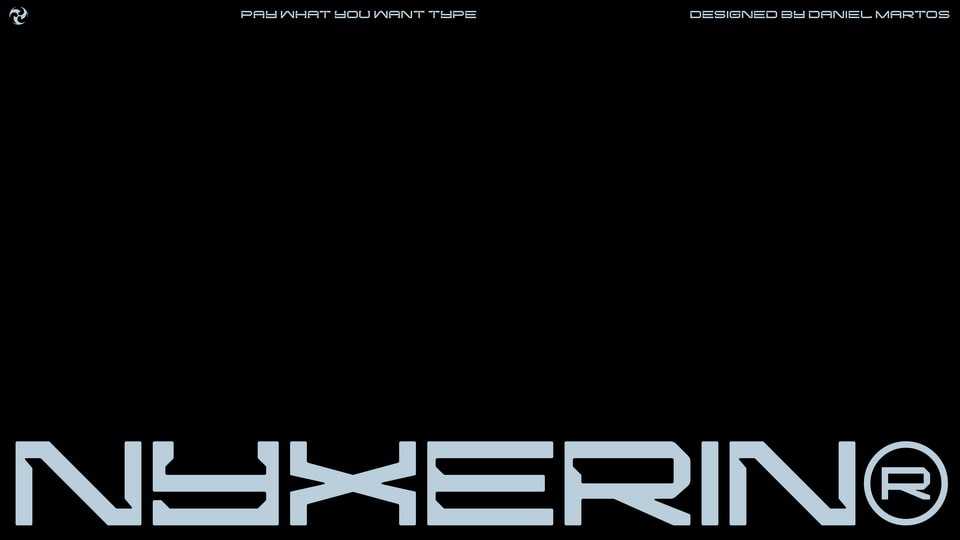
NYXERIN® Font › Fontesk
Download NYXERIN® font, a wide, futuristic, cyberpunkish display typeface. It has a square block techy feel, since everything is made out of straight lines and the only curves are those in the rounded vertices.